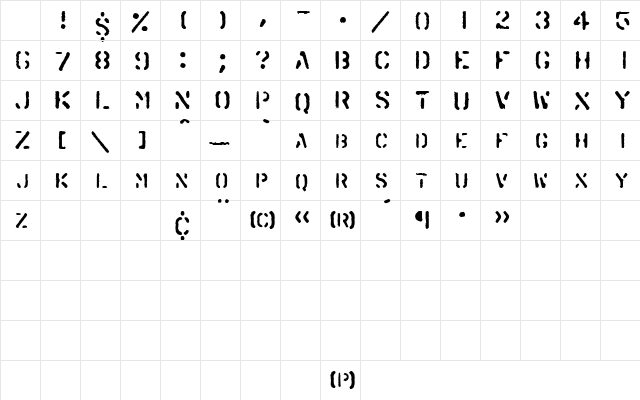
SprayStencil Regular
Design Context for SprayStencil
SprayStencil borrows the utilitarian aesthetic of stencil lettering, with its characteristic cutaways and no-frills construction lending an industrial edge.
Pro Tip: Use SprayStencil at large sizes on packaging, posters, or apparel where the stencil cutaways read clearly. Avoid small sizes where those gaps become visual noise.